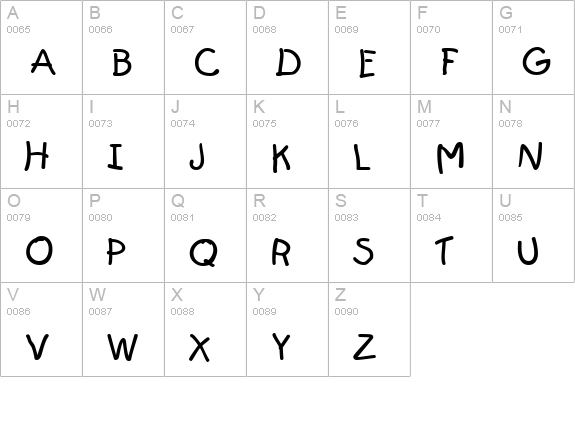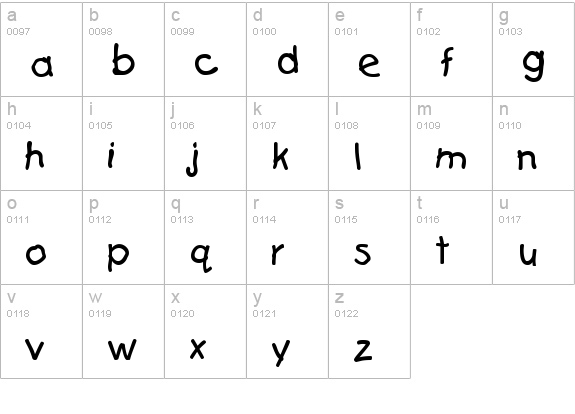
First Grader font is a charming and playful typeface perfect for adding a touch of whimsy to your designs. With its friendly appearance and rounded edges, this font is sure to bring a smile to anyone's face. Whether you're creating educational materials, children's book illustrations, or fun branding elements, First Grader font is a versatile choice that will delight your audience. Best of all, First Grader font is completely free to download at FontsMarket.com. Simply visit the website and start using this delightful font in your projects today. Give your designs a cheerful and youthful vibe with the First Grader font, and let your creativity soar!